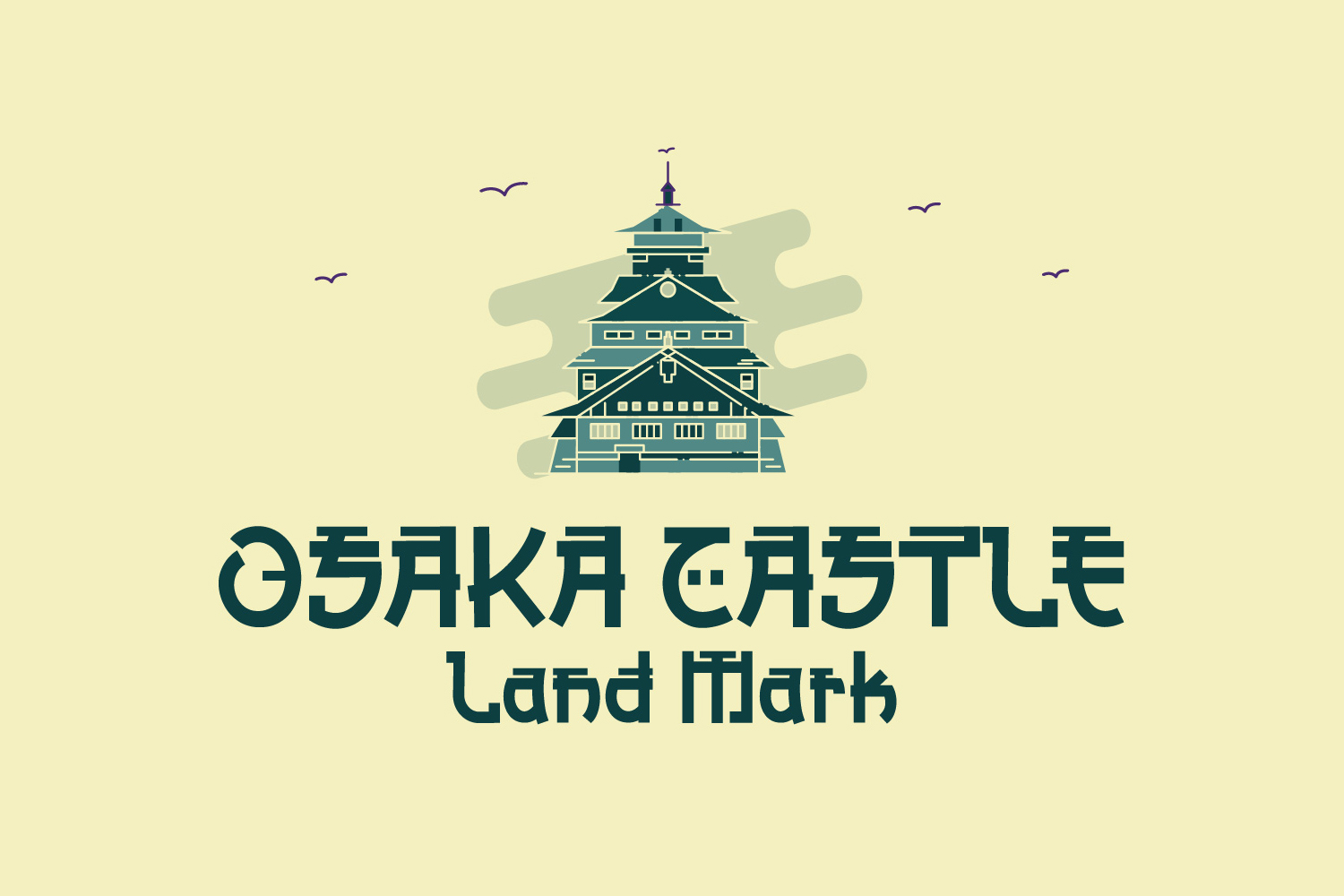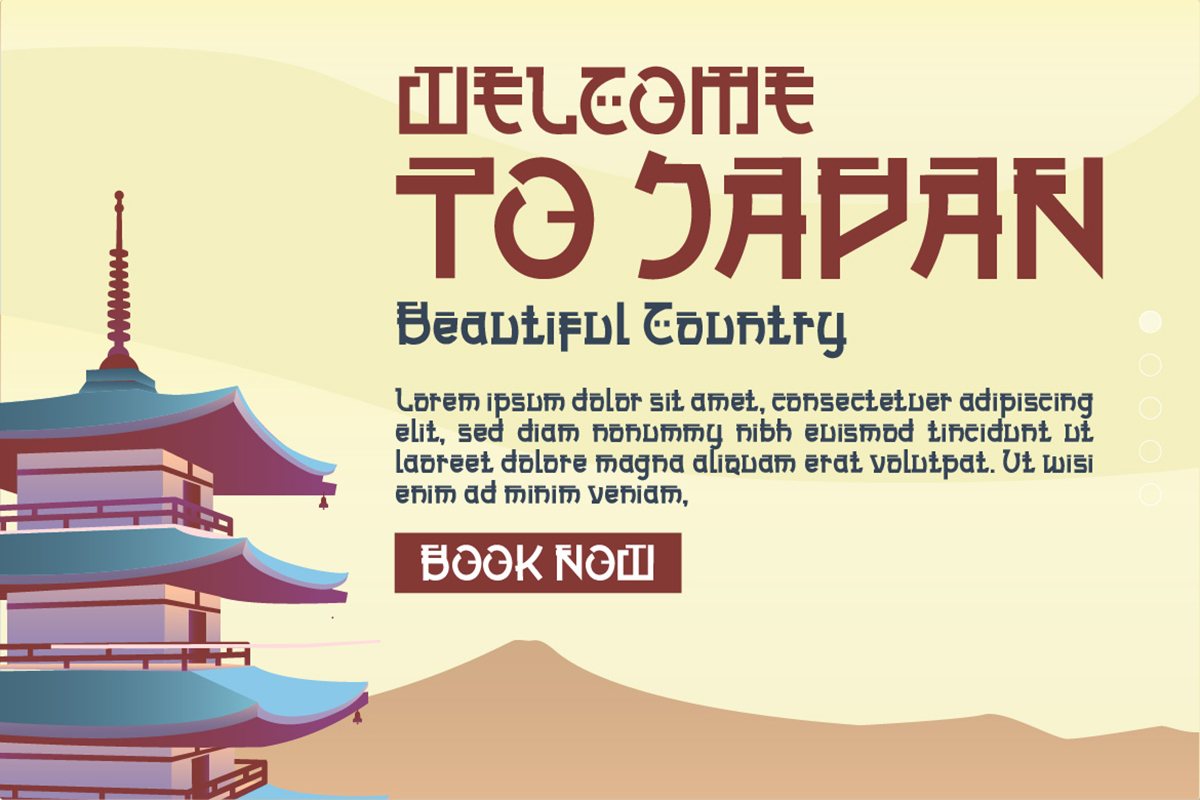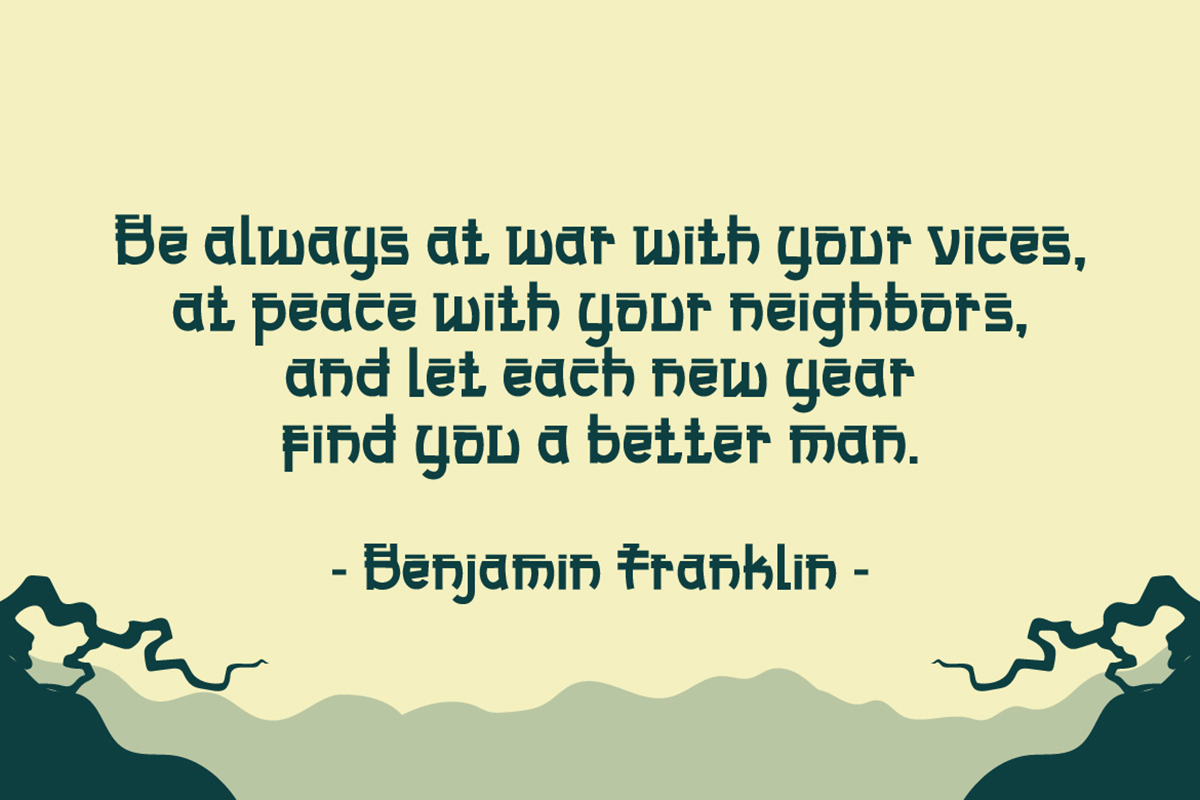
Bamida Free Font
Bamida Free Font embodies a Japanese-inspired display font that leverages the inherent beauty of natural fonts to craft a visually striking, elegant, and organic aesthetic. By opting for this typeface, your project gains a graphic presentation that’s not only visually appealing but also memorable and easily recognizable to your audience. Elevate your project with Bamida and leave a lasting impression with its captivating design. This free typeface was designed by a talentedΒ Twin Letter. If you like it don’t forget to check out the full version.